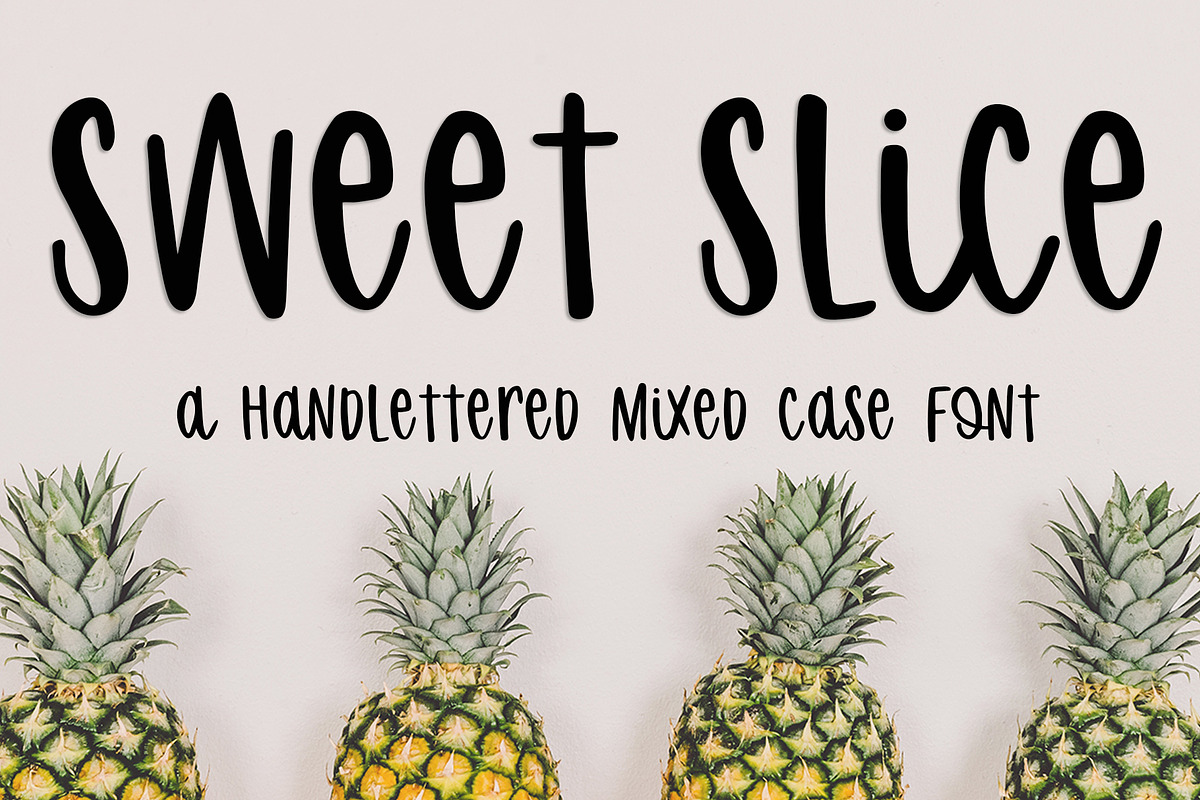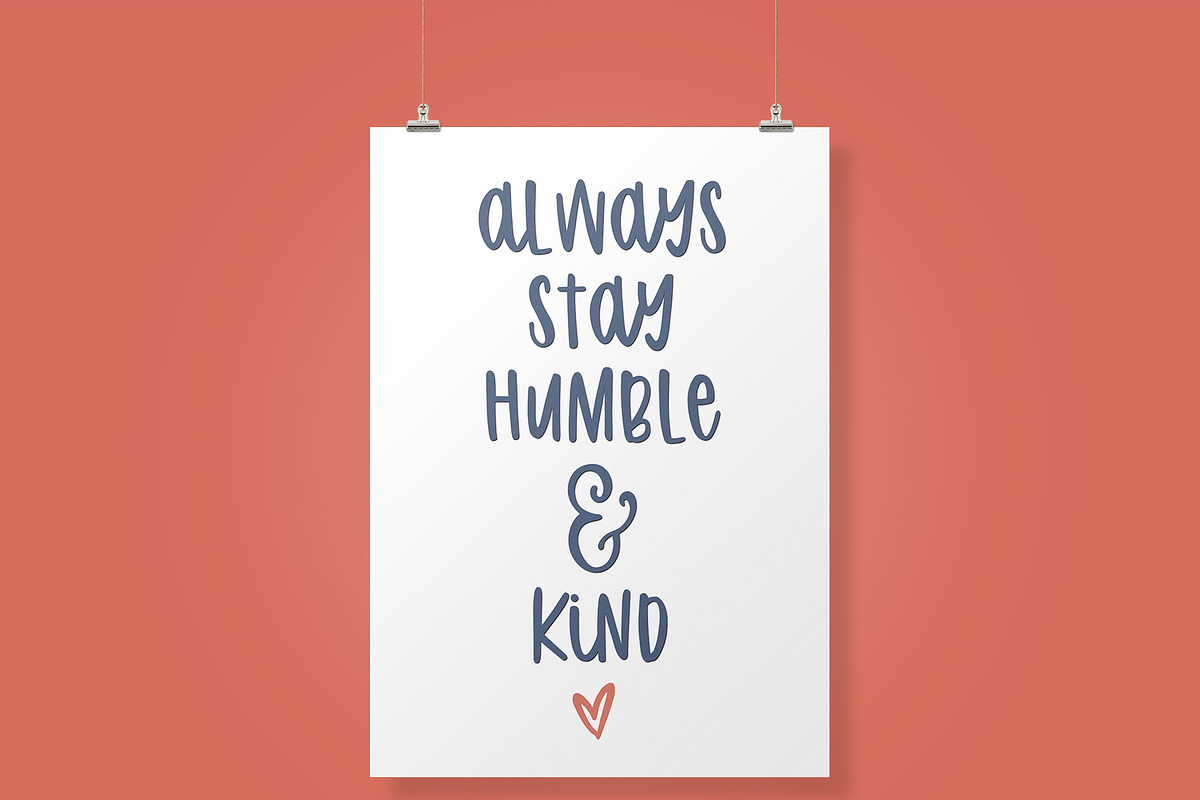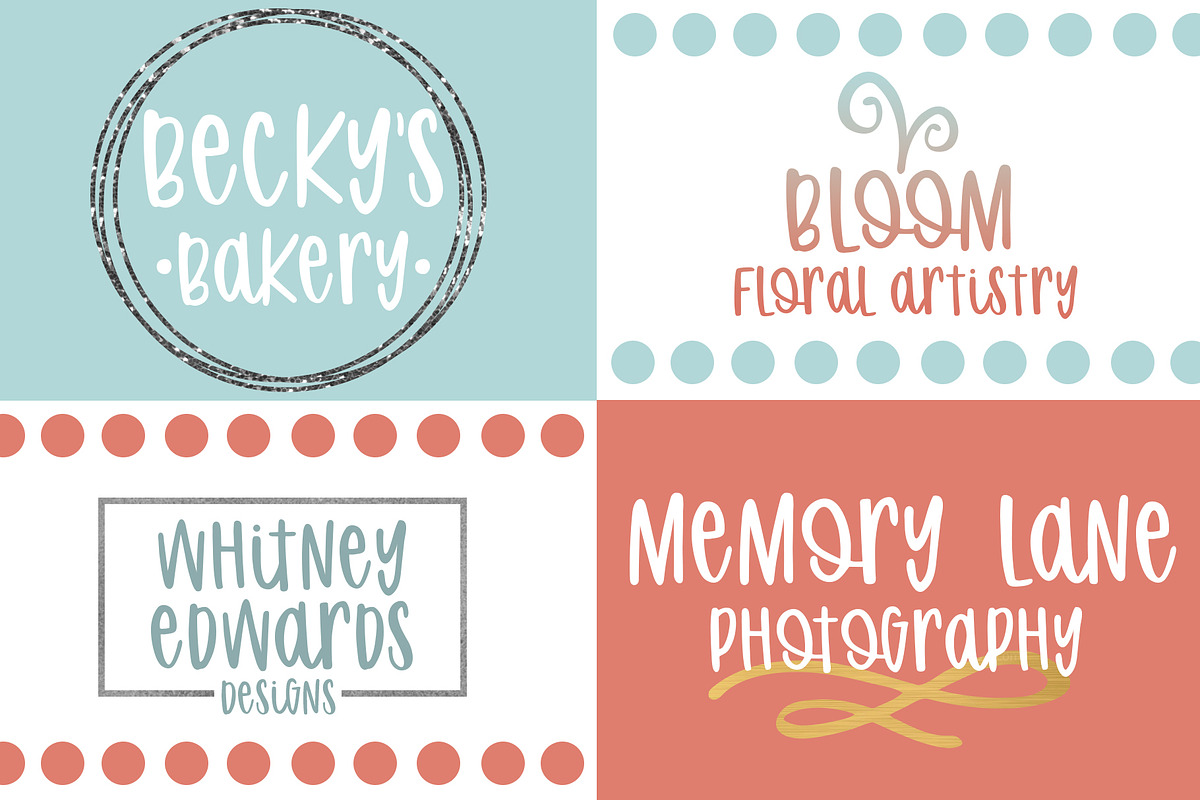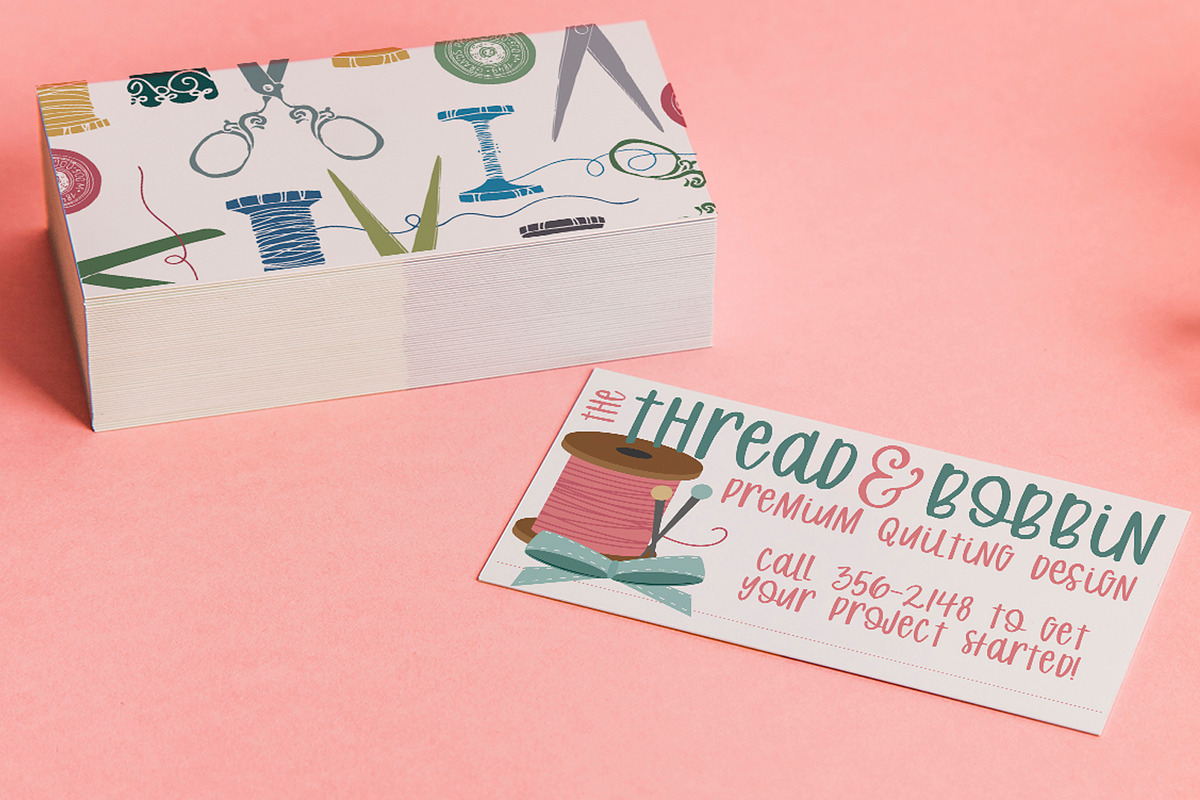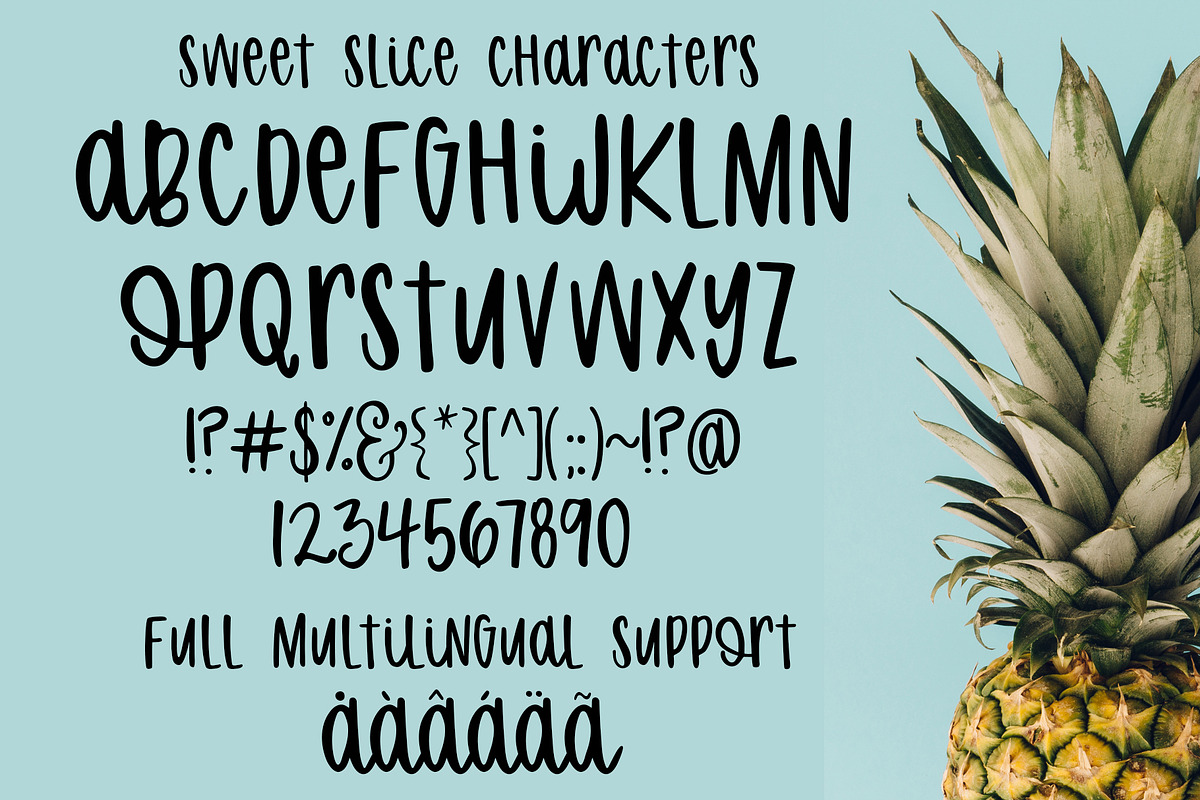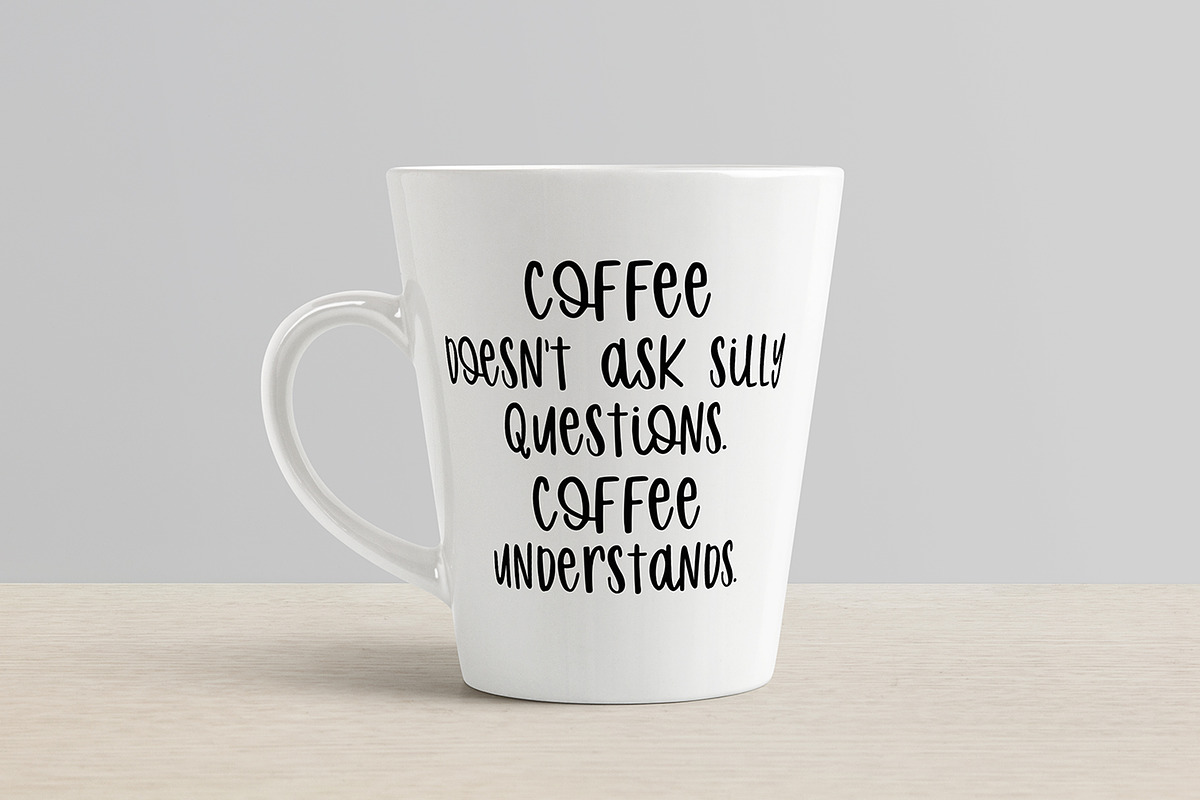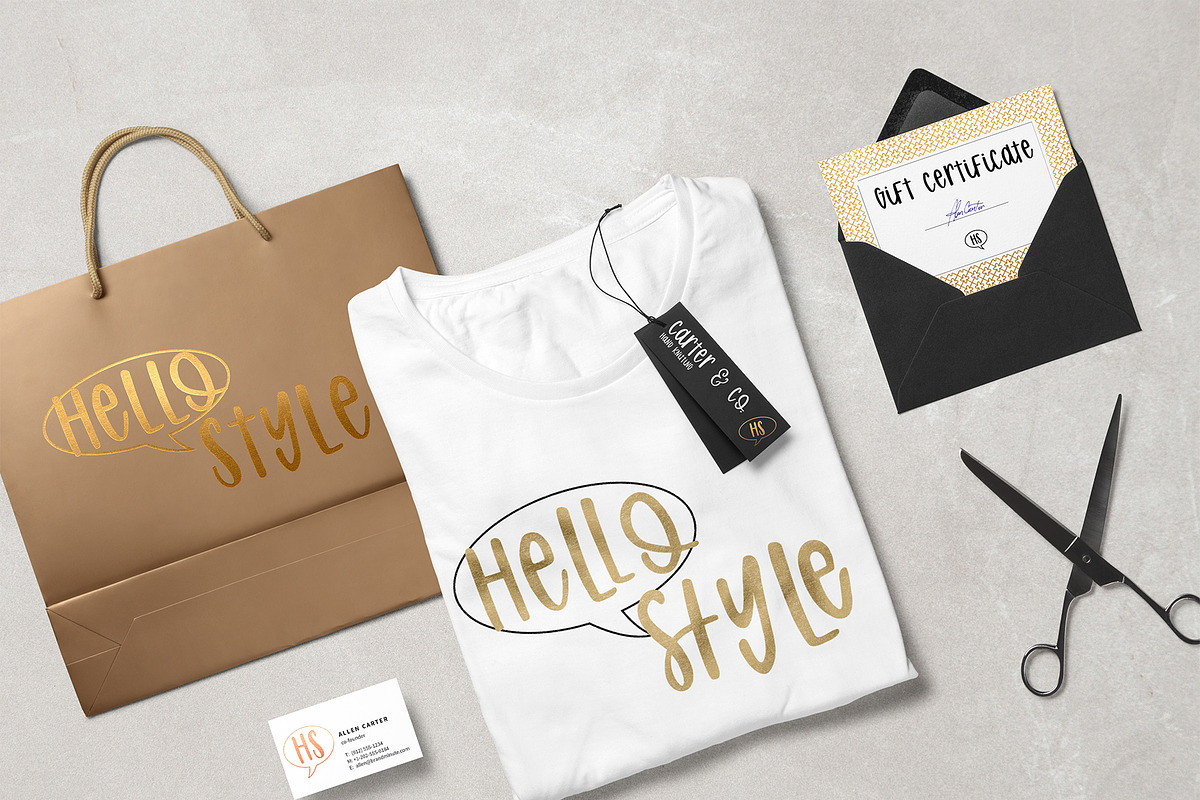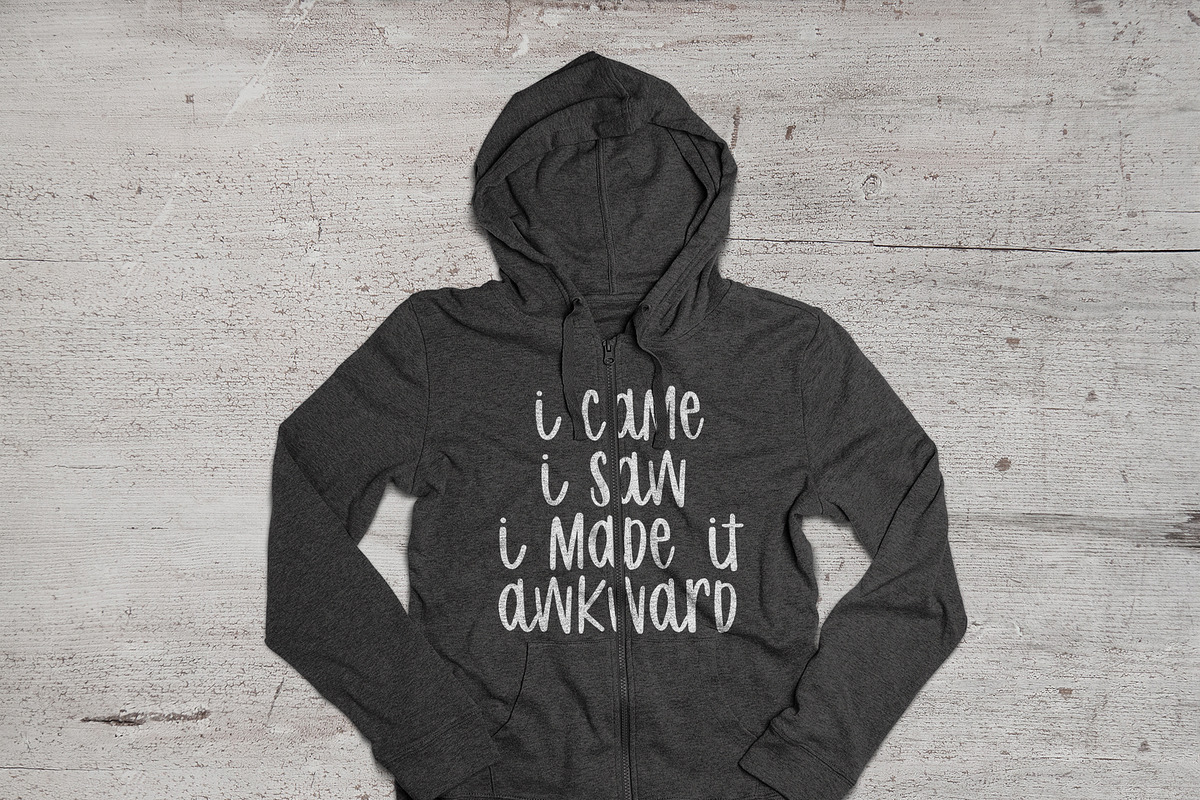
Sweet Slice is a fun and cute mixed case font! Use this font for your social media, quotes, blog, packaging, logos, cards, and much more!
Sweet Slice has 18 ligatures that will give this font a more authentic and handwritten look.
Multilingual support is included for Western European languages. Please test your characters below before purchasing!